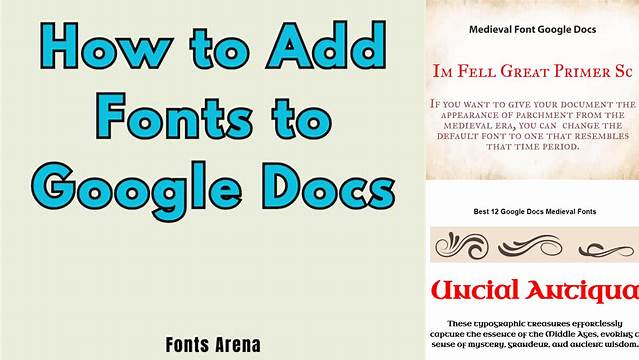
Unearthing Ancient Fonts In Google Docs: A Comprehensive Guide
Hey there, font fanatics! Ever wondered how to sprinkle a little historical magic into your Google Docs? Perhaps you're crafting a medieval-themed project, designing a website with a classical flair, or simply want to experiment with the aesthetics of the past. Well, buckle up, because we're diving deep into the world of ancient fonts on Google Docs! This guide will walk you through everything you need to know, from finding and installing these beautiful typefaces to using them effectively in your documents. Forget boring Times New Roman – it's time to embrace the elegance of antiquity! We'll explore the nuances of different historical styles, consider their historical contexts, and offer tips for using them tastefully. Let's get started and give your documents a touch of timeless charm! We'll also navigate the challenges of compatibility and provide handy workarounds to ensure your chosen fonts display correctly across all devices and platforms. This journey promises to be both informative and inspiring, so get ready to unlock the secrets of ancient fonts on Google Docs and transform your writing into a visual masterpiece.
H2: What Exactly Are Ancient Fonts? A Brief History
So, what exactly constitutes an "ancient font"? Generally, this term encompasses typefaces inspired by letterforms used in historical periods, primarily before the modern era. Think of the graceful curves of Roman capitals carved into stone, the elegant script of medieval manuscripts, or the early printing styles used in the Gutenberg era. The beauty of ancient fonts on Google Docs lies in their ability to transport readers to different times and places, evoking a sense of history, tradition, and craftsmanship. These fonts are often categorized by the periods that inspired them. For example, Roman fonts draw on the letters of ancient Rome, characterized by serifs and a sense of formal elegance. Blackletter fonts, also known as Gothic fonts, mimic the densely packed, angular script of medieval Europe, often used in religious texts and official documents. There are also fonts inspired by the Renaissance, with their more humanist and balanced proportions. The appeal of ancient fonts on Google Docs extends beyond historical accuracy; they also possess a unique aesthetic quality that modern fonts often lack. They can add personality and sophistication to any project, whether you're creating a historical novel, designing a logo, or simply writing a letter. These fonts are more than just text; they are a portal to the past, a visual testament to the enduring power of design and communication. Understanding the origins and characteristics of these fonts is the first step in mastering their use.
H2: Finding Ancient Fonts in Google Docs: The First Step
H3: Using Google Fonts to Find Ancient Fonts
H2: Choosing the Right Ancient Font: Style and Readability
Choosing the right ancient fonts on Google Docs is more than just picking a pretty typeface; it's about aligning your font choice with the overall tone and purpose of your document. The wrong font can clash with your content, undermining your message and confusing your readers. So, let's look at some key considerations. First, understand the historical context of the font. Different historical periods have distinct letterforms and design aesthetics. For example, if you're writing about the Roman Empire, a classic Roman serif font like Trajan Pro would be a good choice. If you're working on a medieval project, a Blackletter font might be more suitable. Second, think about your audience. Who are you writing for? What's the overall tone you're trying to achieve? A formal academic paper might benefit from a clean, classical serif font. A more casual project might allow for a more decorative or handwritten style. Third, prioritize readability. While ancient fonts can be beautiful, some can be challenging to read, especially in long passages of text. Opt for fonts that are clear and legible, even at smaller sizes. Avoid fonts with excessive flourishes or overly stylized letterforms if readability is essential. Fourth, consider the font's weight and style. Different weights (e.g., regular, bold, italic) can impact readability and visual hierarchy. Italics are often best used sparingly for emphasis, while bold can be used to highlight important words or phrases. Fifth, don't be afraid to experiment. Try out different fonts in your document and see how they look. Use the font preview feature in Google Docs to visualize how your text will appear. Finally, remember that good design often means restraint. Sometimes, the simplest fonts are the most effective. Choose fonts that enhance your content without distracting from it.
H3: Understanding Different Historical Font Styles
To effectively use ancient fonts on Google Docs, you've got to know your history. Let's dive into the key historical font styles. First, there's Roman fonts. Inspired by the inscriptions on Roman monuments, these fonts feature serifs, which are the small strokes at the ends of letters, and a generally formal appearance. They are ideal for titles, headings, and any project that requires a touch of classical elegance. Next, we have Blackletter fonts. Also known as Gothic fonts, Blackletter mimics the handwritten scripts of medieval Europe. They are characterized by their angular, often densely packed letterforms. These fonts are great for projects that have a medieval theme or an air of old-world charm. Then, we have the Renaissance fonts. These fonts draw inspiration from the humanist letterforms of the Renaissance era. They are characterized by more balanced proportions and a more readable style compared to Blackletter. They're an excellent choice for projects that want a touch of classical elegance. Finally, there are Script fonts. These fonts emulate handwriting styles from various historical periods. From elegant calligraphy to informal handwriting, Script fonts can add personality and a personalized touch. However, use them judiciously in large blocks of text, as they can sometimes be challenging to read. Remember, understanding these historical styles will help you choose the perfect font for your project. Pay attention to the details of each style. The curves, serifs, and proportions, each contribute to a font's personality. Using the correct font can enhance the overall impact of your work. It's like wearing the right clothes; it can enhance your message.
H3: Matching Fonts to Your Project's Tone and Purpose
Choosing the right ancient fonts on Google Docs means considering your project's tone and purpose. Here's how to match the font to your specific needs. Start with your project's tone. If it's formal and serious, opt for a classic Roman serif font. If it's more casual and friendly, try a script font. If it's mysterious or gothic, a Blackletter font will do the trick. Then, determine your project's purpose. Is it a historical novel? A website? A presentation? Each project has different requirements. If you're writing a historical novel, choose fonts that fit the era. If it's a website, consider fonts that are easy to read on screen. If it's a presentation, select fonts that are clear and impactful. Consider the audience. Are you writing for academics? For children? Each audience has different expectations. Younger audiences might appreciate a more playful font, while academics might prefer a classic font. Think about the overall style of your project. Is it minimalist? Maximalist? Your font should complement the overall style. Avoid using too many fonts. Stick to a couple to create a consistent and professional look. It's often best to choose one font for headings and another for body text. To see how the font will look, create a sample document with different fonts and test them out. See how the fonts look at different sizes and weights. Compare fonts side-by-side to find which ones work best together. Readability is essential. Choose fonts that are easy to read at different sizes. Test the font at different sizes on the screen to check for readability. Take time to practice different font combinations. Matching your fonts to your project's tone and purpose is crucial for creating an effective design.
H2: Using Ancient Fonts Effectively in Google Docs: Best Practices
Okay, you've found your ancient fonts on Google Docs, now what? Here's how to use them effectively and avoid common pitfalls. First, legibility is king. Always prioritize readability, particularly when using historical fonts, as some can be challenging. Ensure your chosen font is easily readable at different sizes, especially in the body of your text. Avoid overly ornate or complex fonts for large blocks of text. Second, consider the context. Think about the overall style and tone of your document. The font should complement your content and enhance the message. For example, a Blackletter font might be suitable for a medieval theme but may seem out of place in a modern business report. Third, use font combinations wisely. Don't be afraid to mix and match fonts, but do so judiciously. Using too many fonts can create a chaotic and unprofessional look. It's often best to use one font for headings and another for body text. Look for fonts that complement each other. Fourth, manage font sizes and weights. Use different font sizes and weights (e.g., regular, bold, italic) to create a visual hierarchy and guide the reader's eye. Bold and italic can be used to emphasize key points or phrases. Ensure your font sizes are appropriate for your target audience and the device they're using. Fifth, space is your friend. Pay attention to the spacing between lines, letters, and words. Proper spacing improves readability and prevents your text from looking cramped or cluttered. Adjust the line spacing and paragraph spacing in Google Docs to enhance the visual appeal. Sixth, proofread carefully. When working with historical fonts, ensure your text is free of errors. Proofread your document carefully for any typos or grammatical mistakes. This will improve the overall quality of your document. Seventh, test on different devices. Test your document on different devices and platforms to ensure the font displays correctly. Pay attention to any display issues and make adjustments as needed. Using these best practices will help you create effective and visually appealing documents.
H3: Learning Resources and Tutorials for Font Design
Ready to take your ancient fonts on Google Docs skills to the next level? Here are some fantastic learning resources. Start with online courses. Platforms like Coursera and Udemy offer various courses about typography and font design. Learn the fundamentals of font design. Then, check out the design blogs and websites. Explore design blogs to learn techniques. Check different techniques. These are excellent resources for beginners. Next, visit typography websites and resources. Explore websites to learn more. These are great resources for different font styles. Then, consider design software tutorials. Learn about different software design techniques. This will offer hands-on techniques. Next, consider workshops and webinars. Learn more from professionals. These are great opportunities for learning new skills. Participate in different workshops and enhance your skills. Following these steps will enhance your skills.